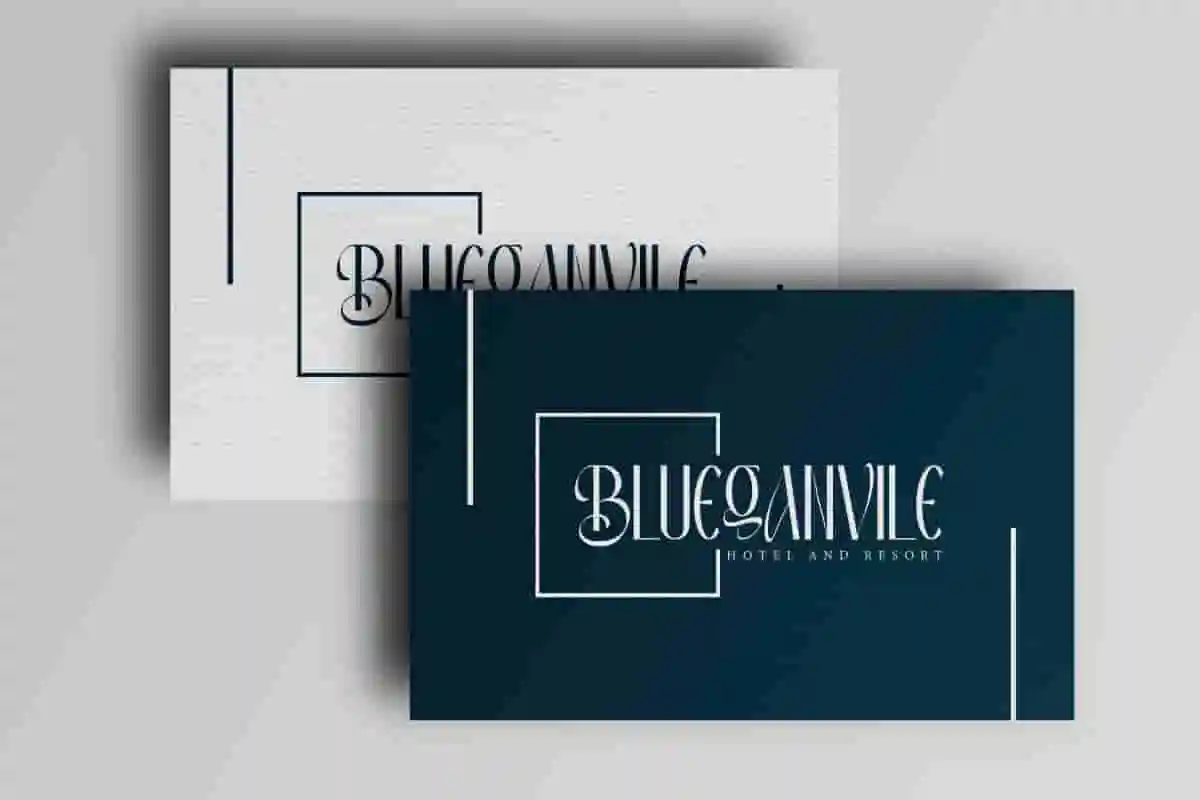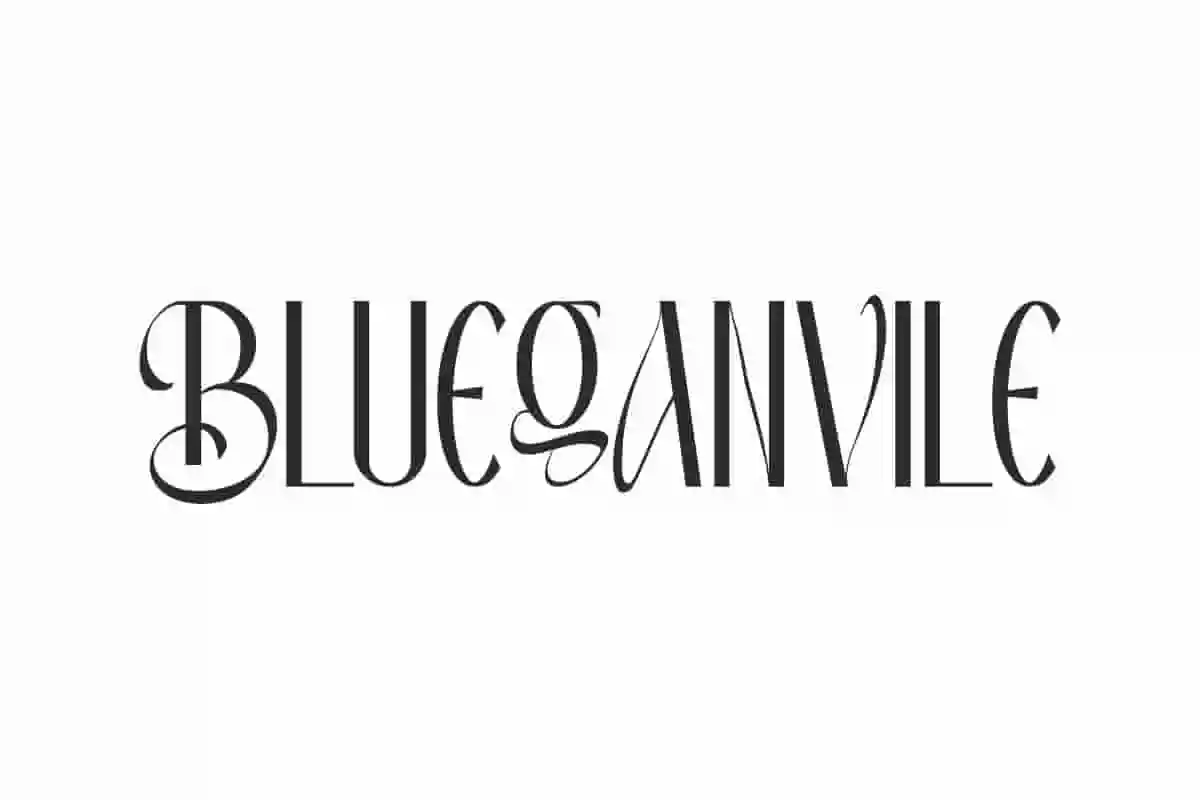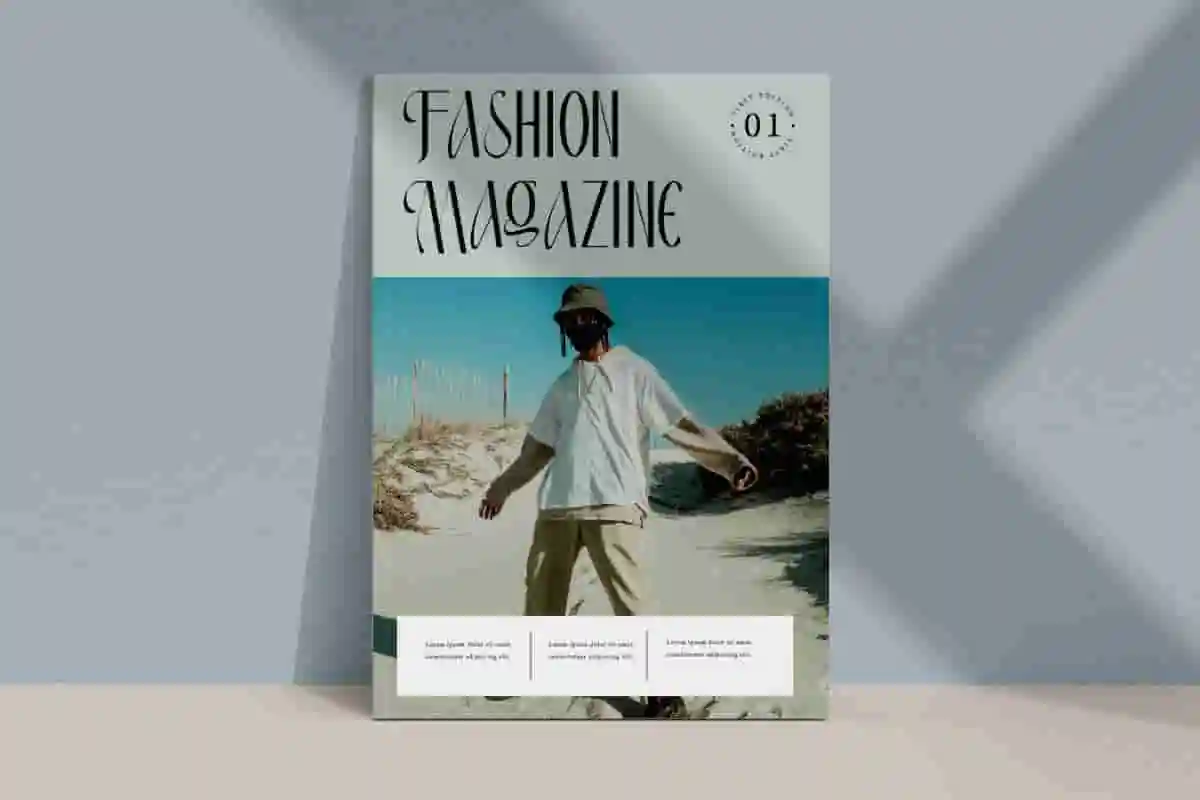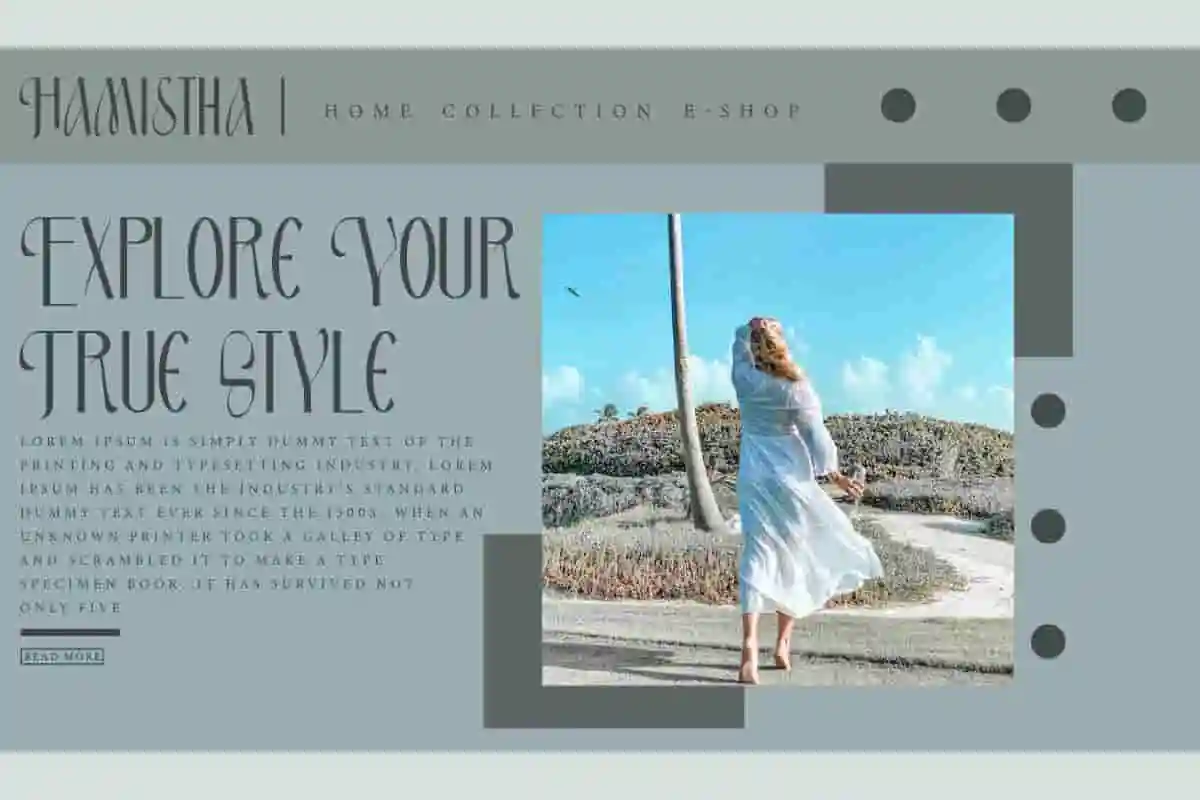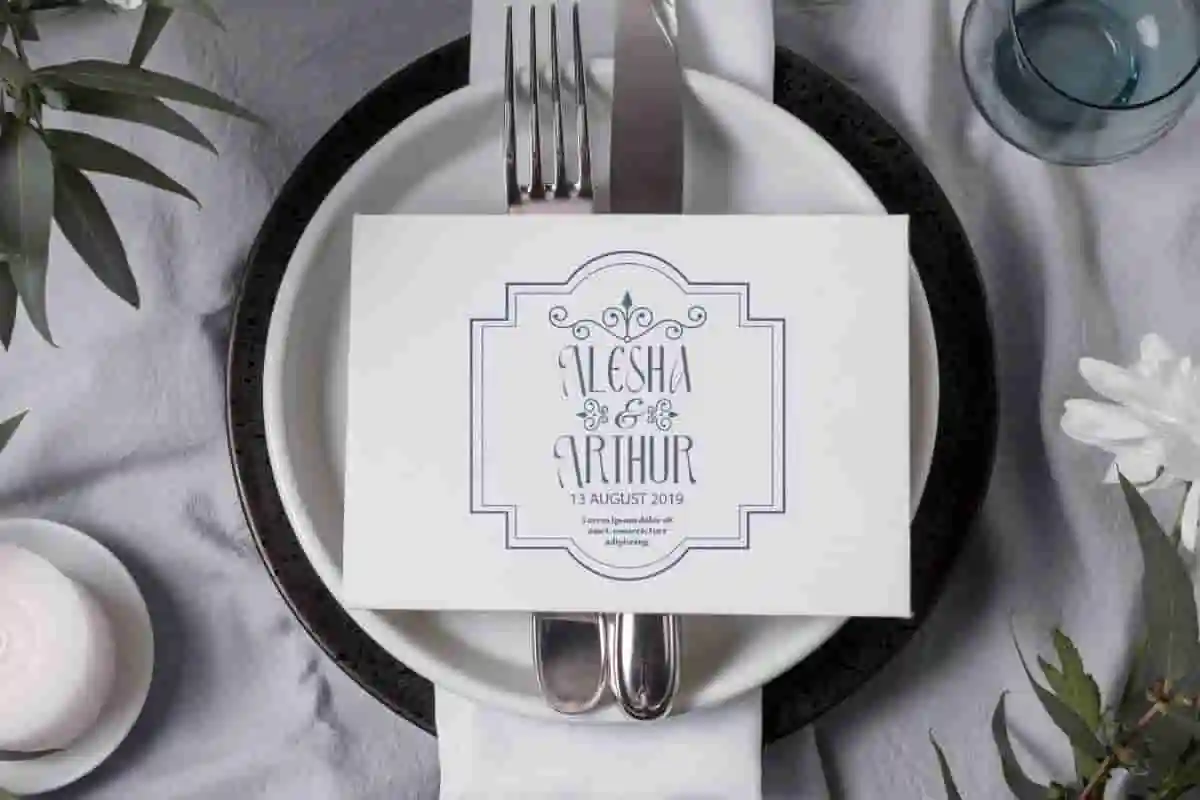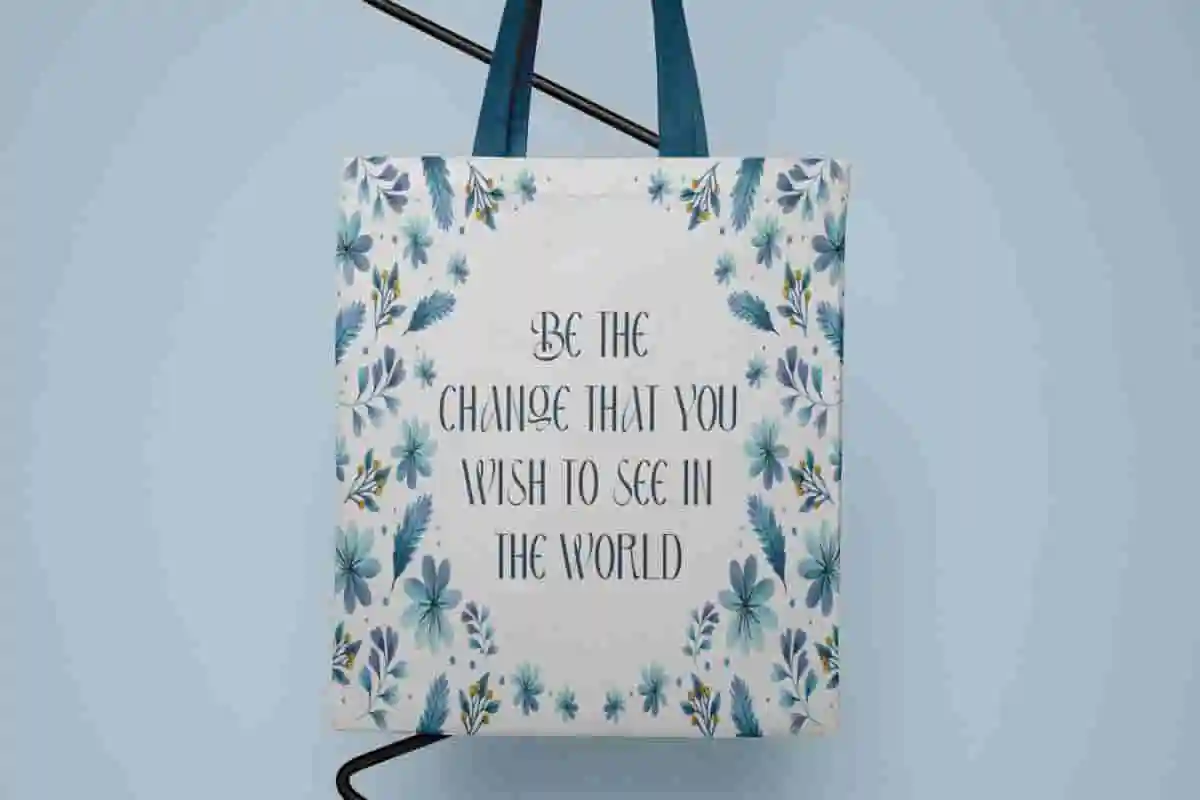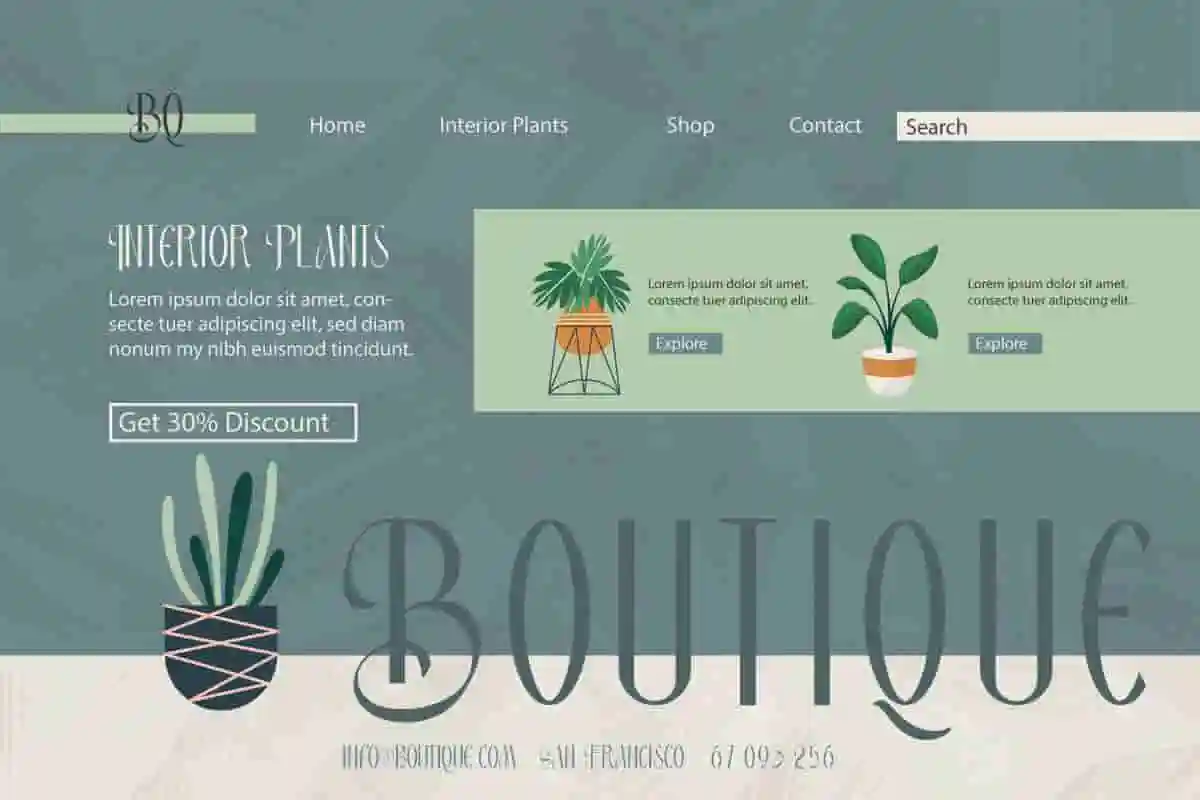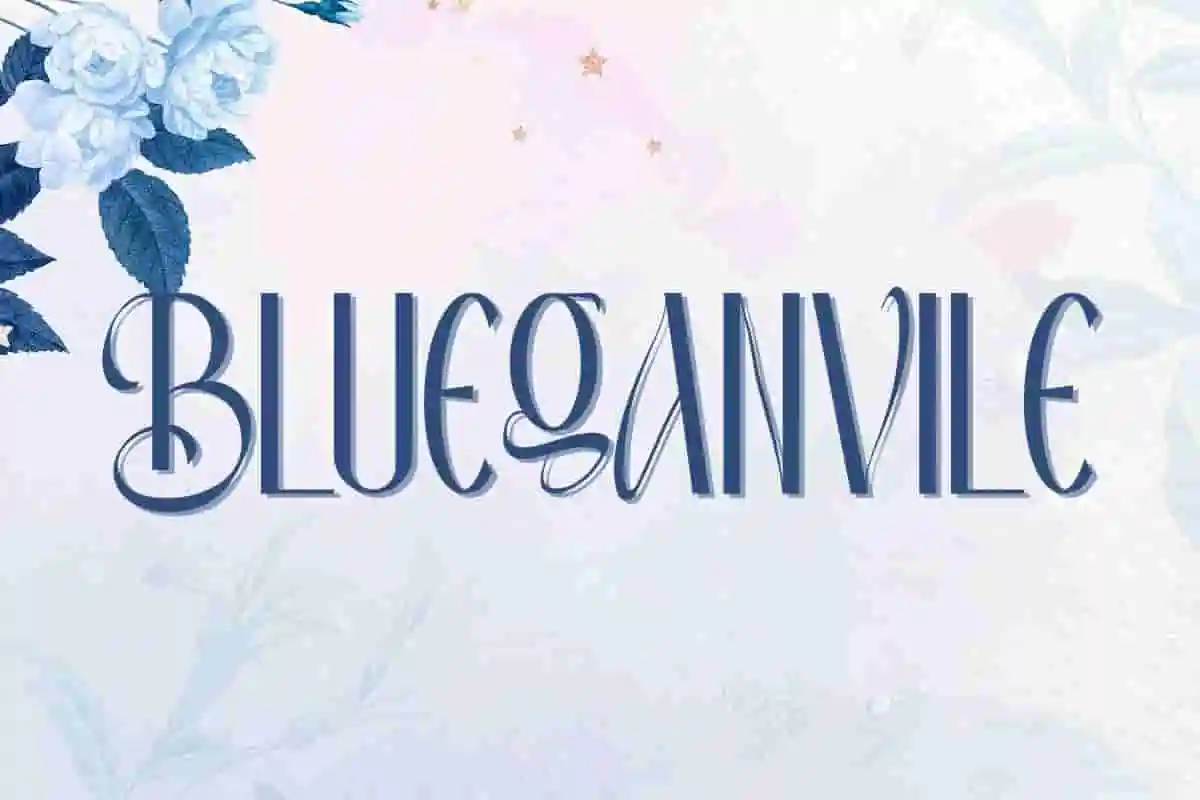
Blueganvile Classy Font
Blueganvile Font is a is a stunning sans serif display font with a classy looks style. Awesome for brands, movies, weddings, professionals, content creators etc.
Blueganvile Font is a stunning sans serif display font with a classy looks style. It will be able to elevate your designs to high level, such as billboard, brand logo, brochure, business card, invitation, label, magazine catalog, mockup design, poster, packaging design, quote, screen print, signage, stationery, sticker, title, website, etc.
Blueganvile Font includes full set of elegant ALL CAPS with different size between Uppercase and Lowercase letters, Number, Punctuation and Symbol. Carefully crafted typography provides a near-perfect typeface that fits your business, such as apparel, bakery or pastry, café, fashion designer, furniture, gardener, handicrafts, homeware, lodging, planter, photography, printing, publishing, restaurant, writer, and many more.